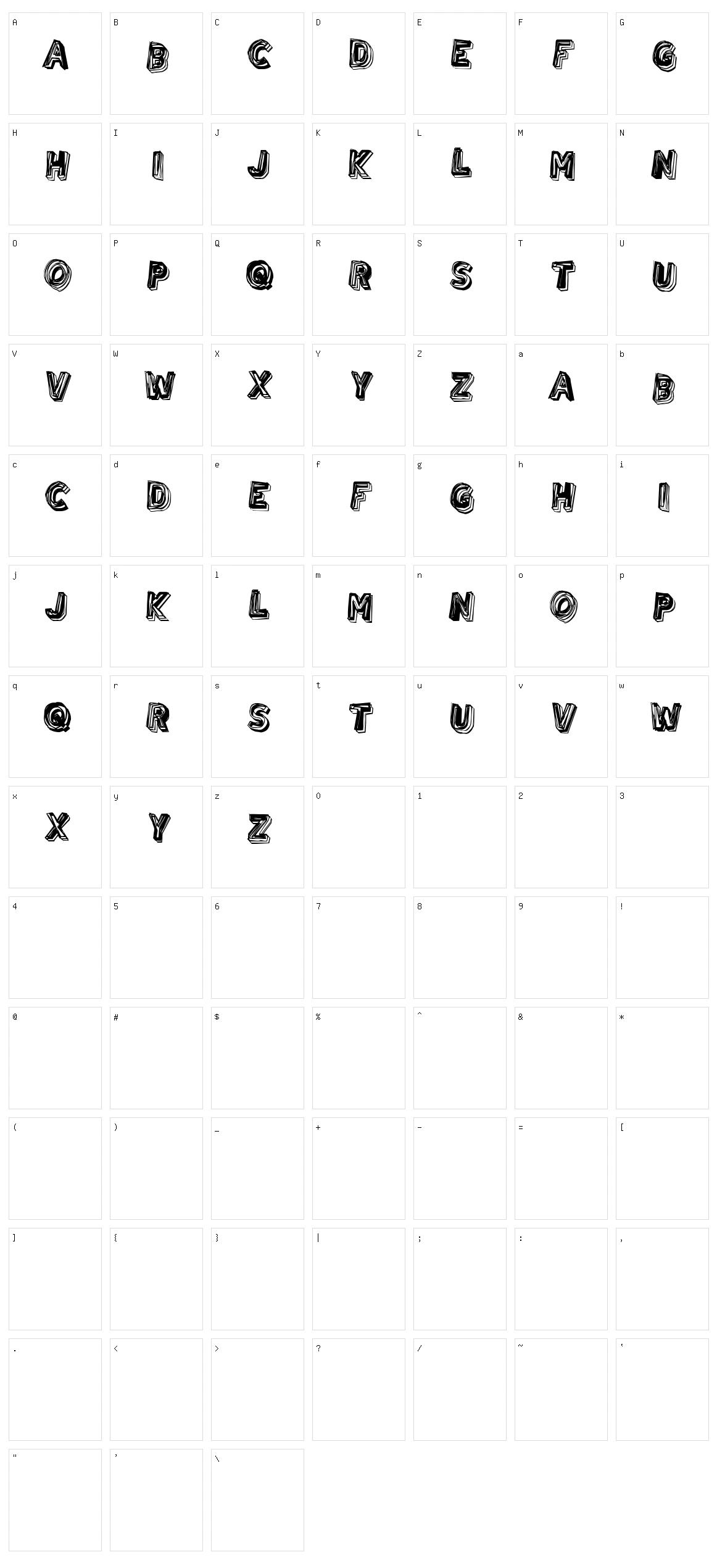
The free font Urban Brigade is carefully designed by Frederic, showcasing a thoughtful balance of creativity and usability and falls under the Distorted font style. When you download the ZIP file, it contains only 407.08 KB of font files, making it lightweight and quick to download. Please review the license details below to understand permitted usage and distribution rights. If license information is not available, we recommend using this font for personal projects only or contacting the author directly for commercial usage permissions.